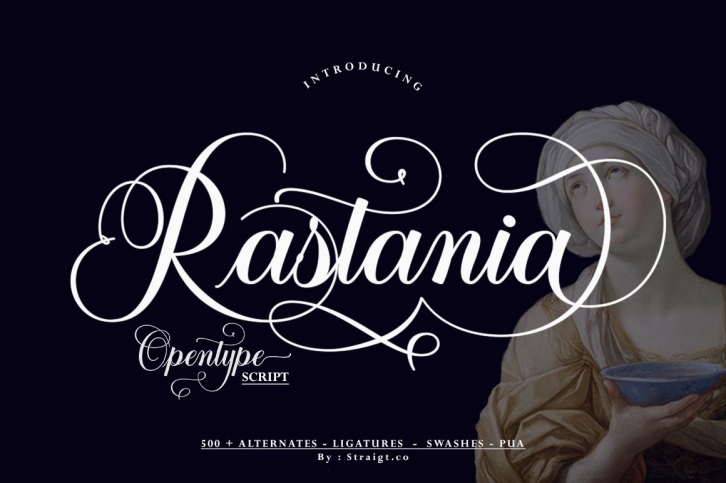
Rastania Script is a trendy and unique font with an authentic style. It was designed by Straightco and it's a great choice for creative people who need such a font. It was released on February 27, 2022 and the file size is 4.98 MB. Rastania Script will add an organic vibe to any design idea!